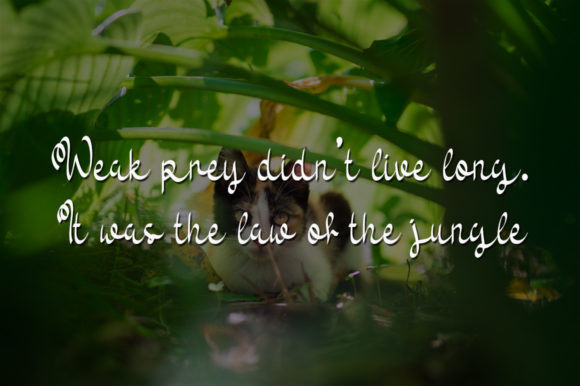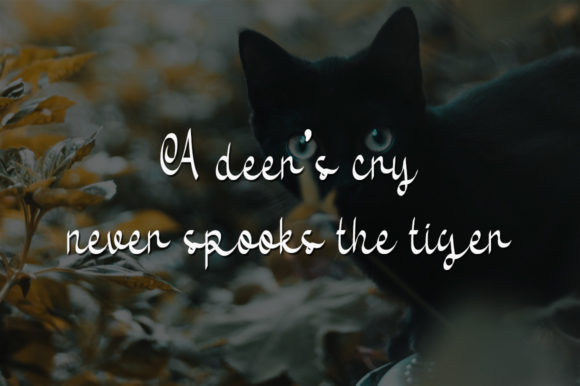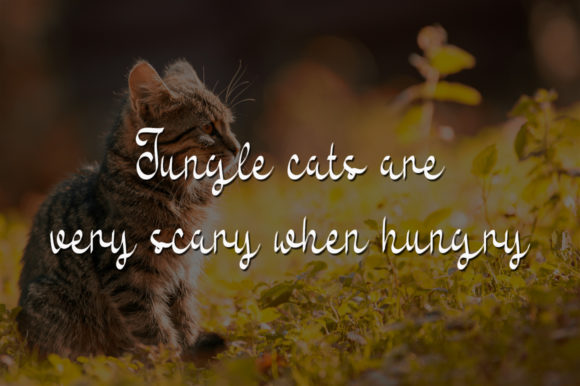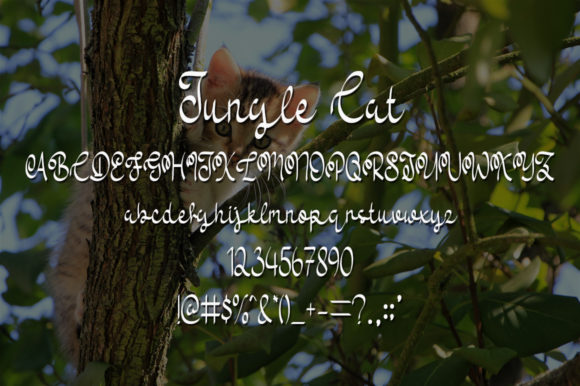
Unleashing Your Creativity with Jungle Cat Font
Have you ever stared at a blank canvas, searching for that perfect spark to ignite your creative project? For many designers, the quest for the right font can be the difference between a great idea and a mediocre execution. That’s where the Jungle Cat Font comes in – a high-quality, free download that’s about to become your new design BFF.
With its casual, handwritten style, the Jungle Cat Font is the perfect addition to any design project that needs a touch of whimsy and personality. Whether you’re working on a logo, social media graphics, or even a simple invitation, this font will help you create unique and special designs that stand out from the crowd. And the best part? It’s completely free to download, making it an invaluable resource for designers on a budget.
Key Features of Jungle Cat Font
- High-quality design with a unique, hand-drawn style, perfect for creative projects.
- Comes with a transparent background, allowing for easy integration into various design elements.
- Unique characteristics include expressive lines, organic shapes, and a fun, playful feel, making it ideal for children’s books, greeting cards, and other creative projects.
Honest Review: Jungle Cat Font
I recently had the chance to work with the Jungle Cat Font, and I must say, it’s been a delightful experience. The high quality of the font is evident from the moment you download it. It’s a fantastic design resource that can elevate any creative project.
- What works well: ✨ The font is highly customizable, making it perfect for various design projects. It comes with a transparent background, which allows for seamless integration with any design. The font is also easy to use and install.
While the Jungle Cat Font is an excellent choice for many projects, there are a few limitations to keep in mind. ⚠️ The font may not be suitable for formal or professional projects, as it has a playful and whimsical feel to it.
Overall, I’m impressed with the Jungle Cat Font. It’s a great design resource that can add some personality to your creative projects. With its high quality, customizable design, and transparent background, it’s definitely worth considering for your next design project.
The Jungle Cat Font is a high-quality design resource that can elevate your creative project. It’s available for free download and features a transparent background, making it easy to integrate into your design.
Tips for Getting the Most Out of Jungle Cat Font
Experiment with different font sizes and styles to create visual interest. Combine the Jungle Cat Font with other design elements, such as images or graphics, to add depth to your design. Use the font in creative ways, such as in headings or subheadings, to draw attention to important information.
Common Use Cases for Jungle Cat Font
The Jungle Cat Font is suitable for a variety of creative projects, including graphics, posters, flyers, and social media graphics. It’s also a great choice for branding and marketing materials, such as business cards and brochures.